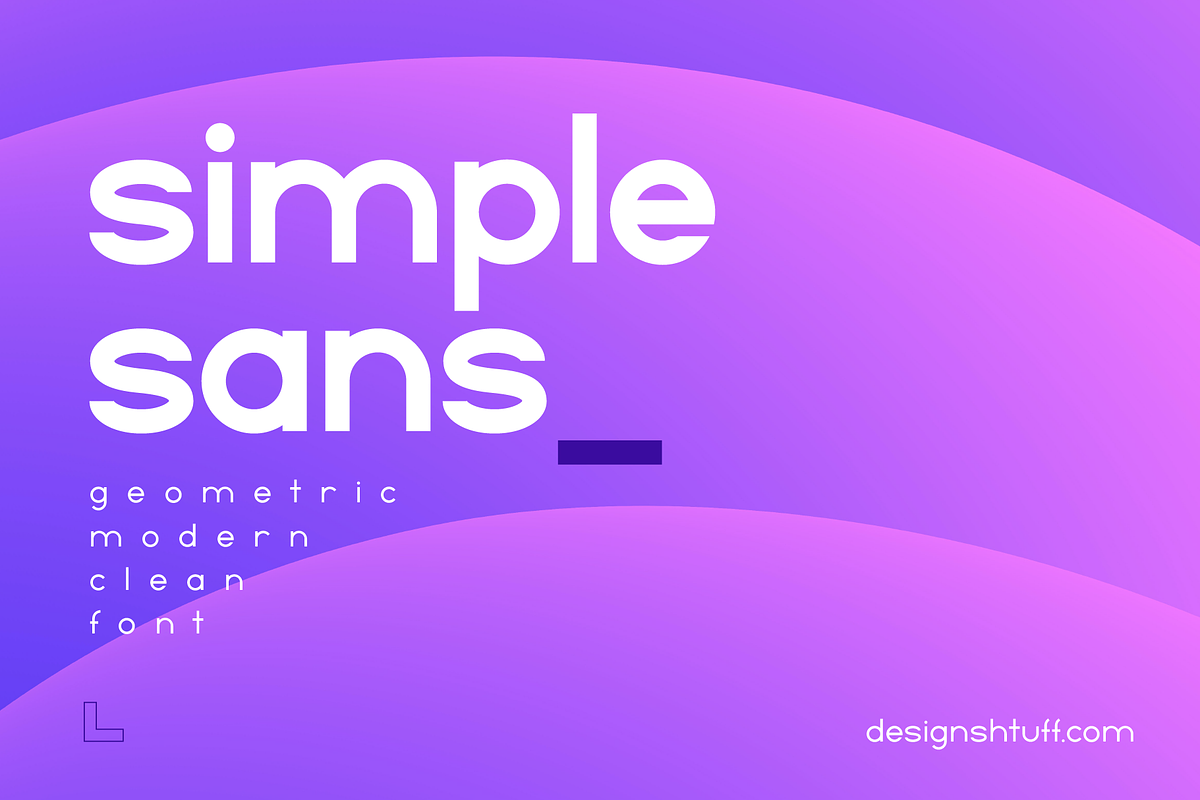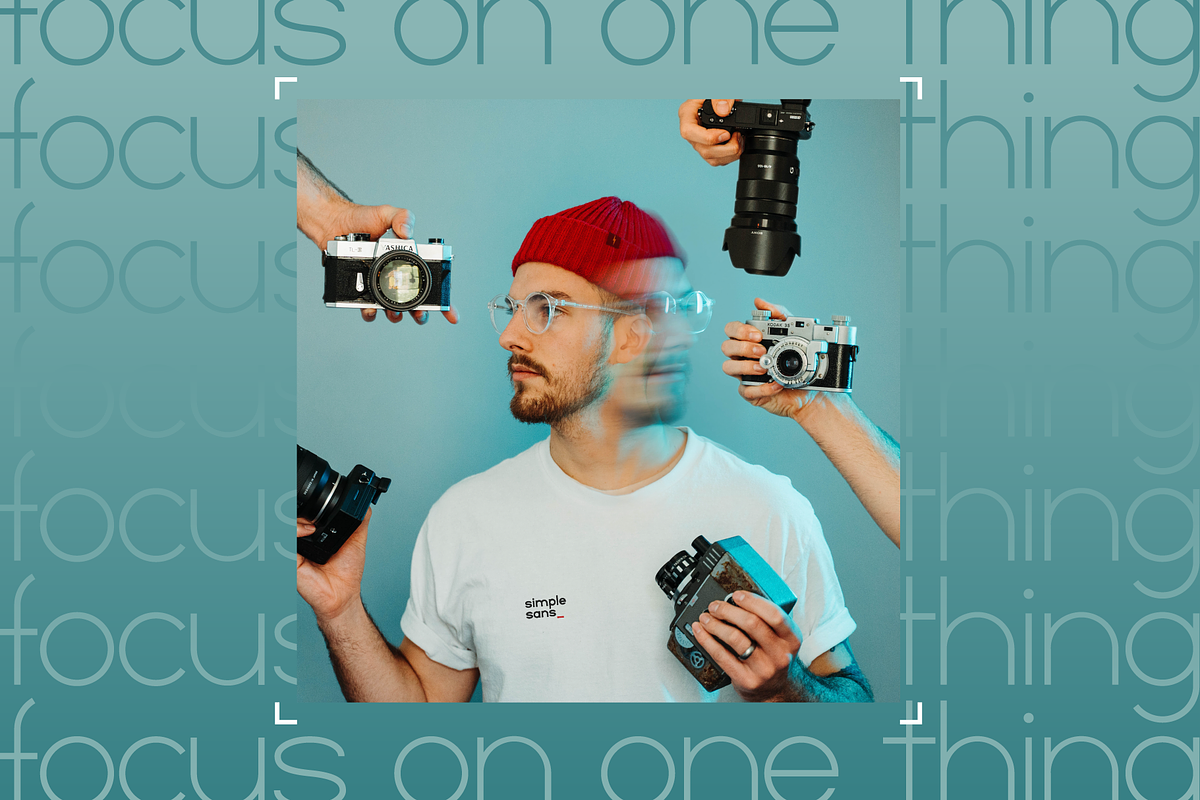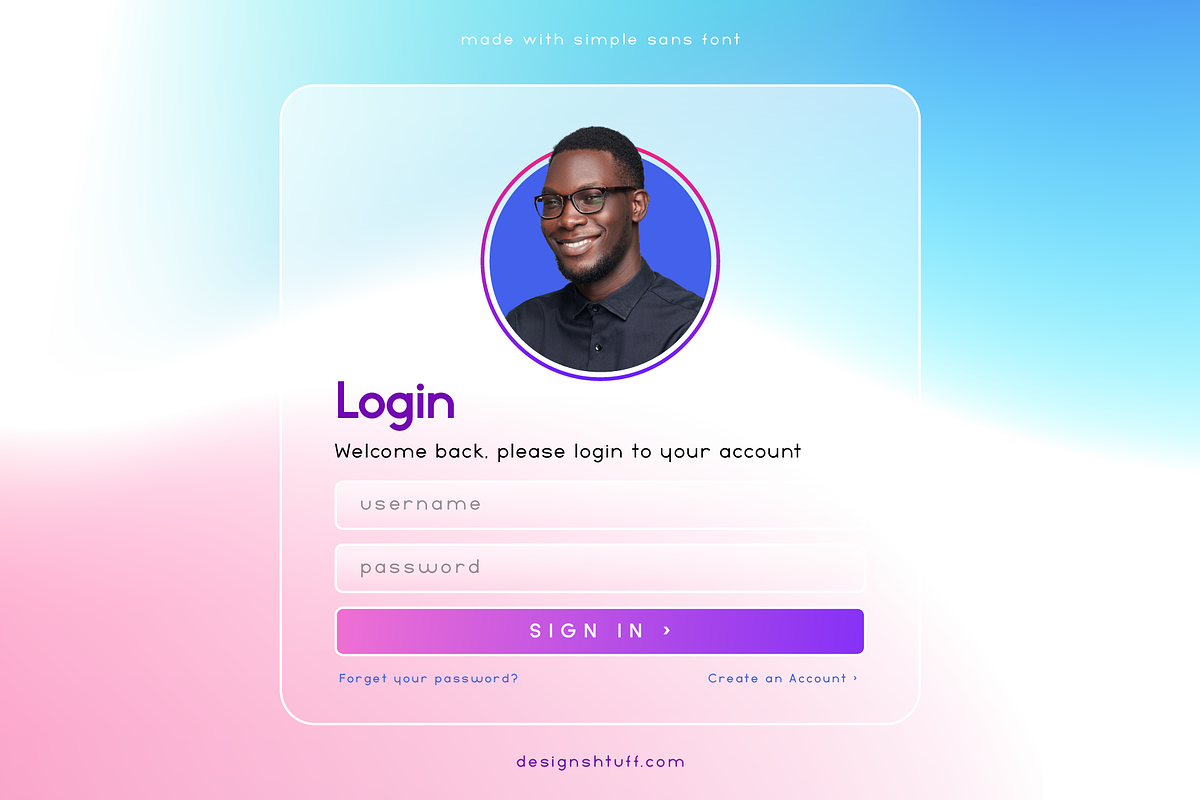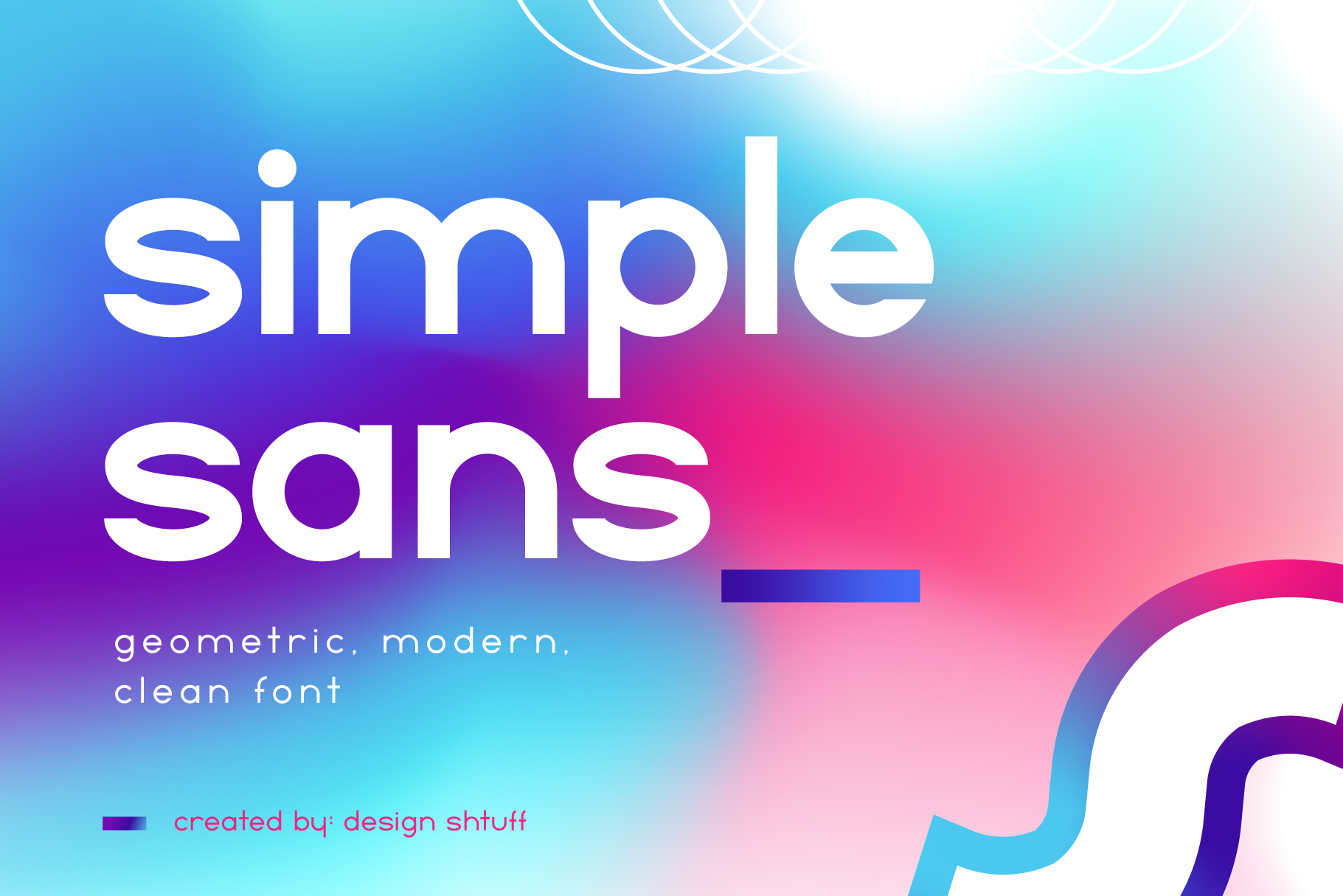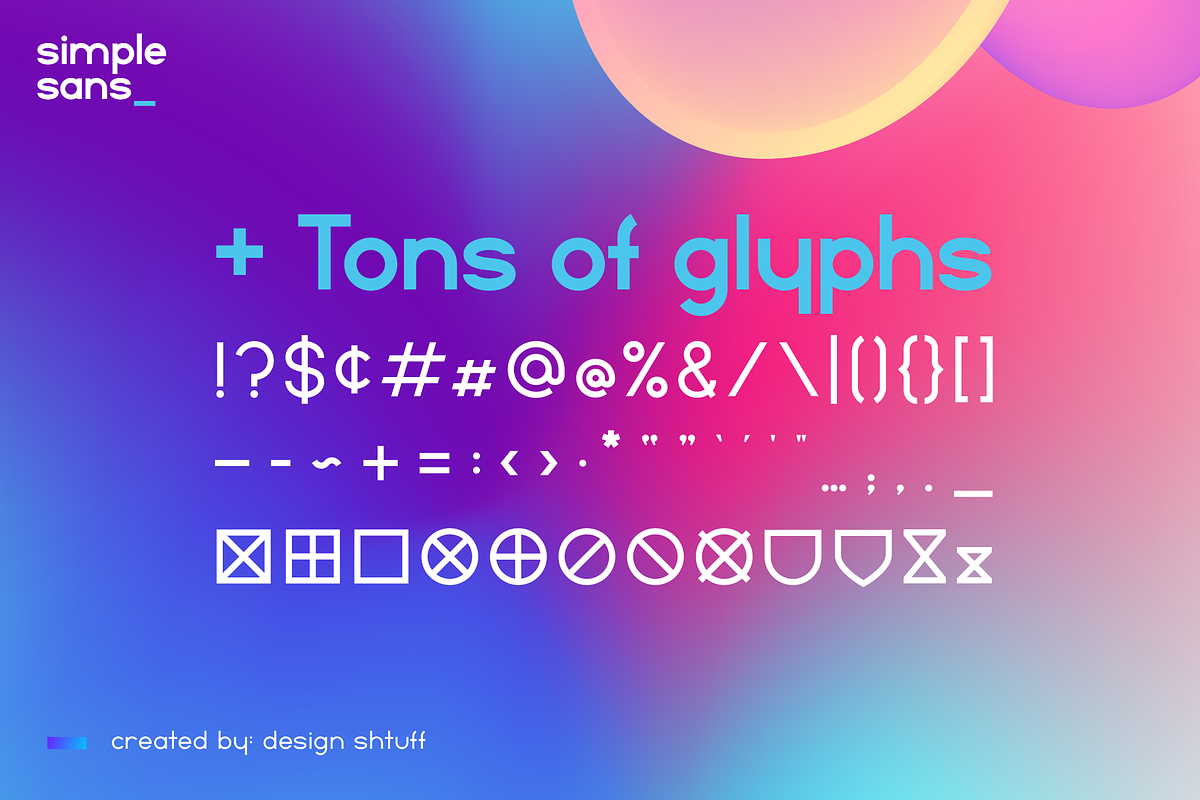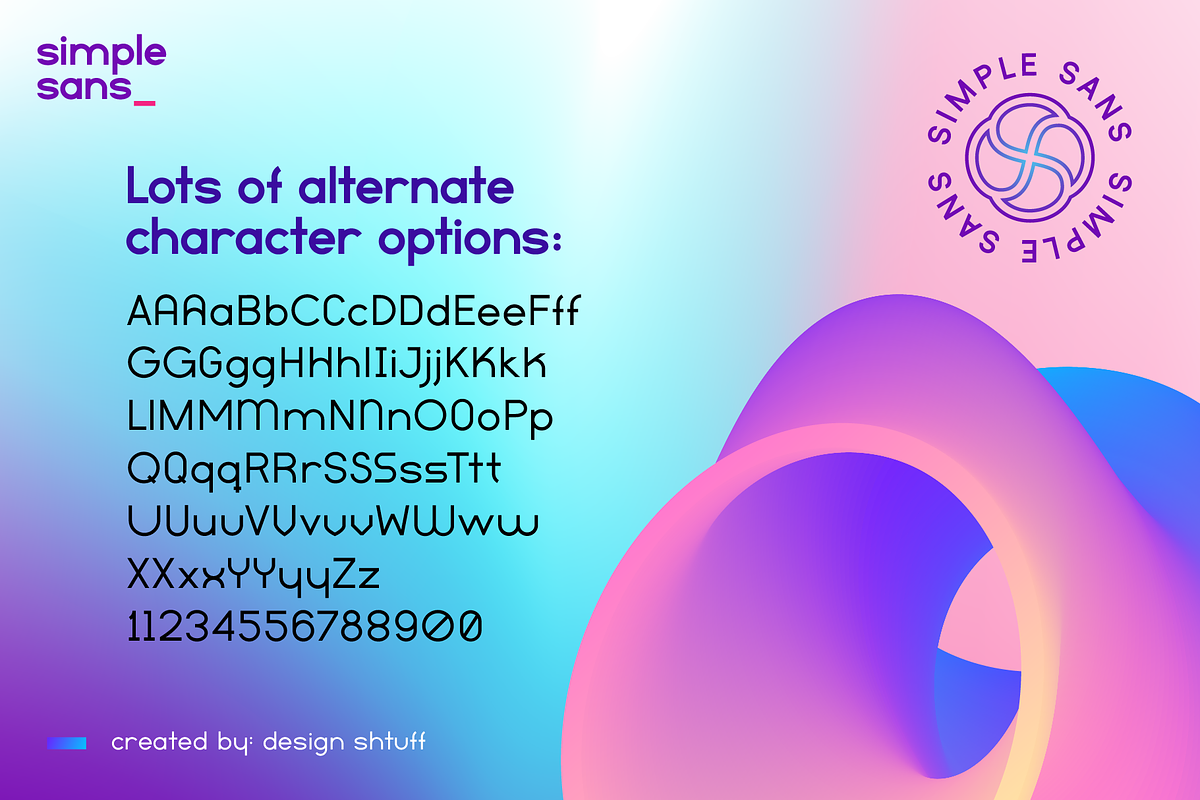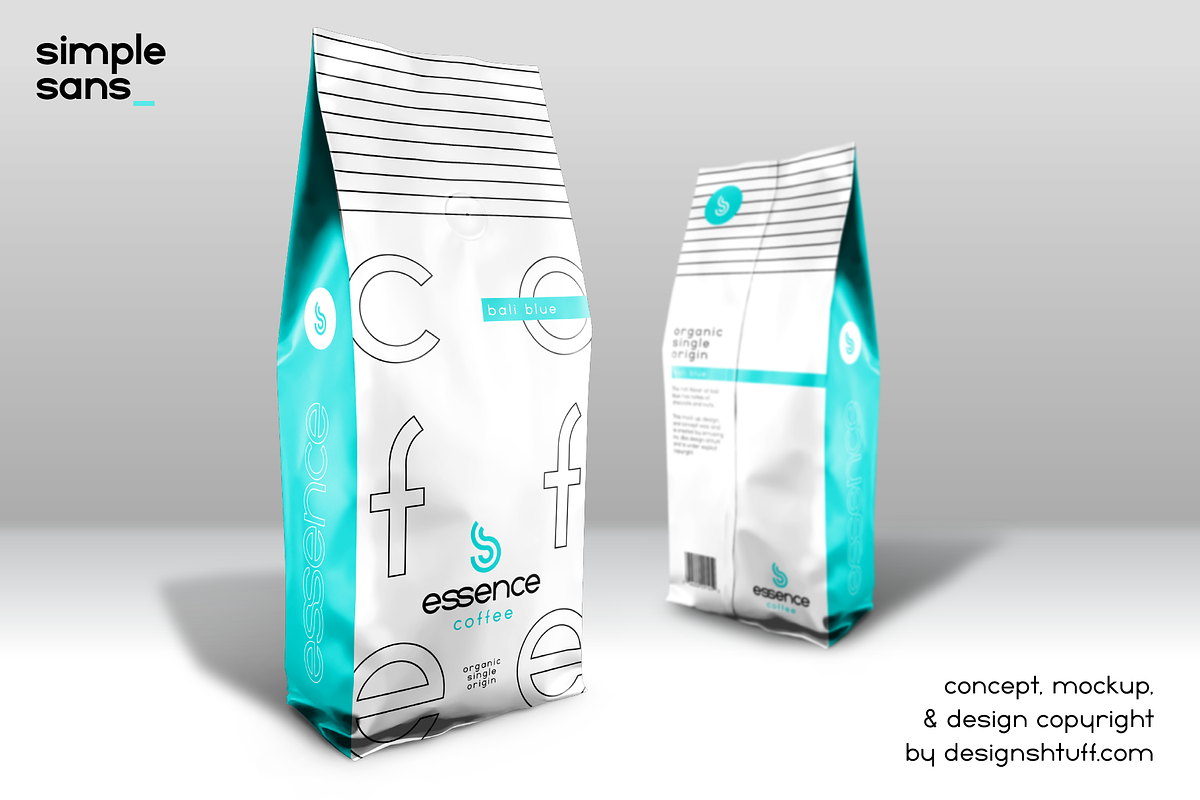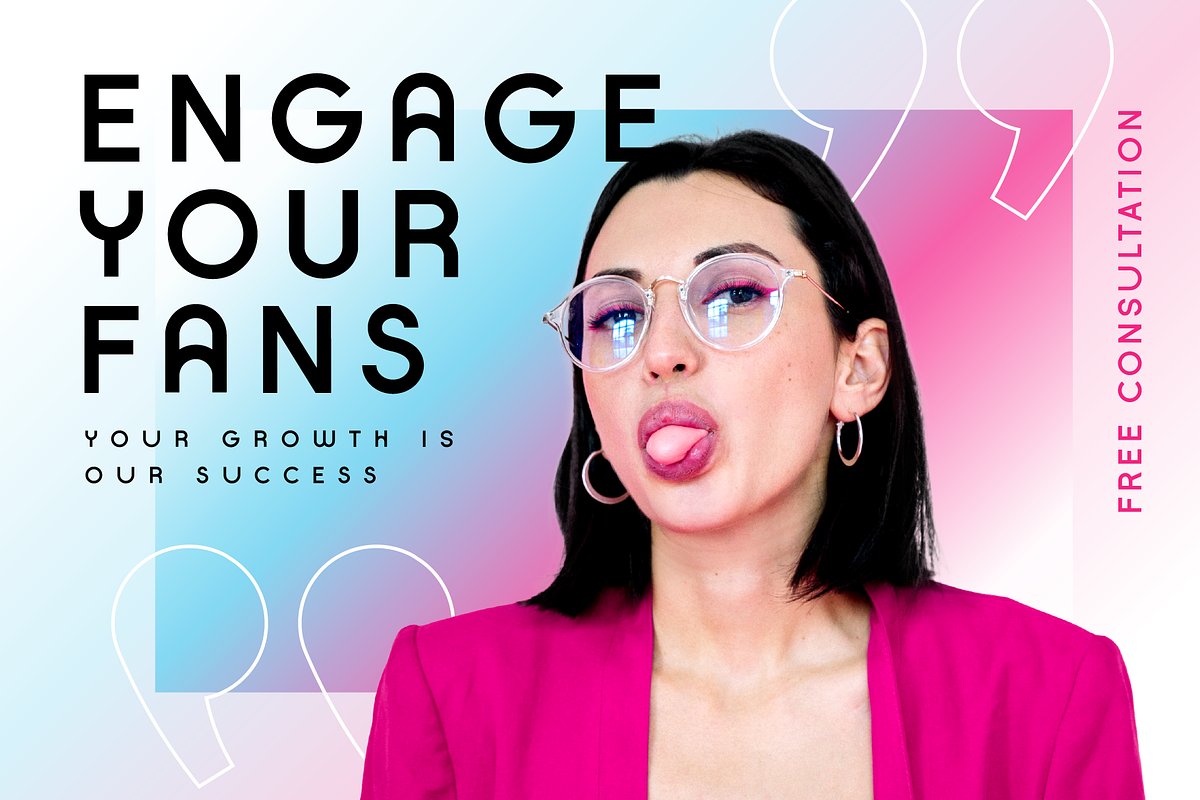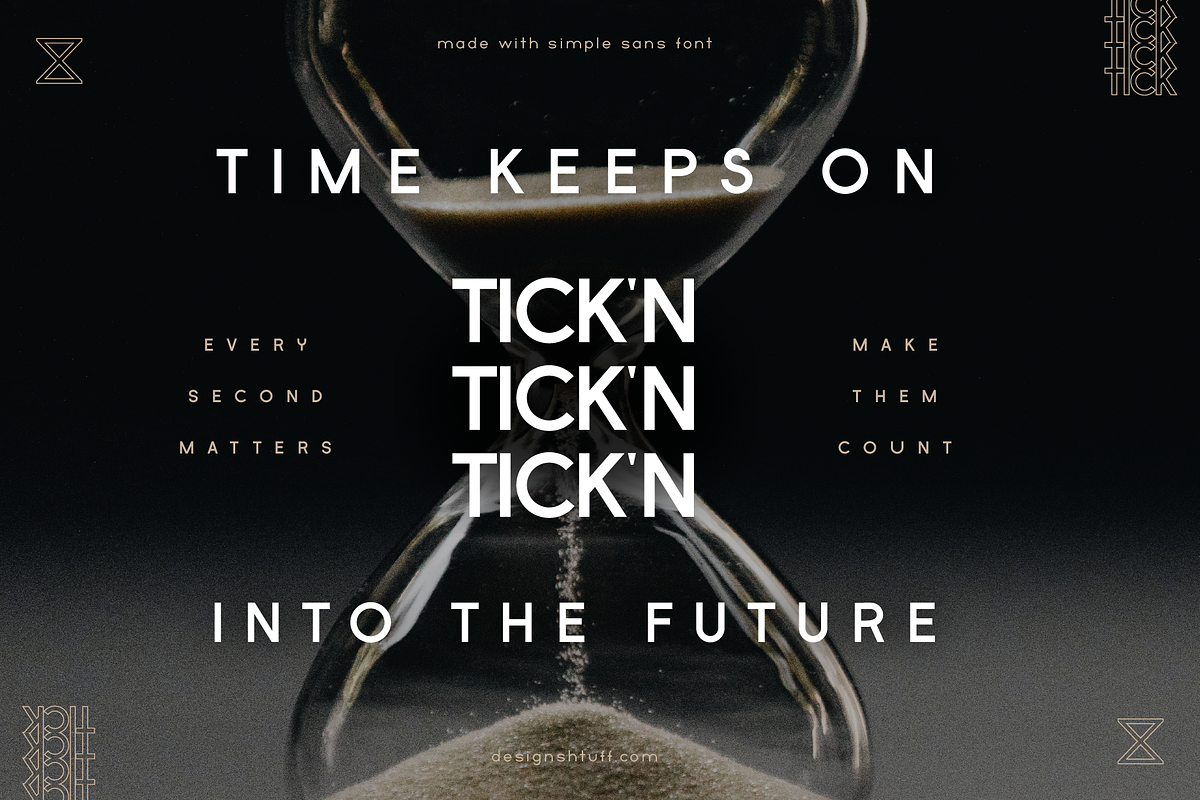
SIMPLE SANS - A SUUUPER CLEAN FONT
A MODERN SANS SERIF FONT BASED ON SIMPLIFIED GEOMETRIC SHAPES.
Simple Sans was created with upper and lower case, and a full number set. It comes in three font weights and has tons of alternate characters, shapes, and glyphs.
Perfect for all types of graphic design projects looking for a suuuper clean aesthetic.